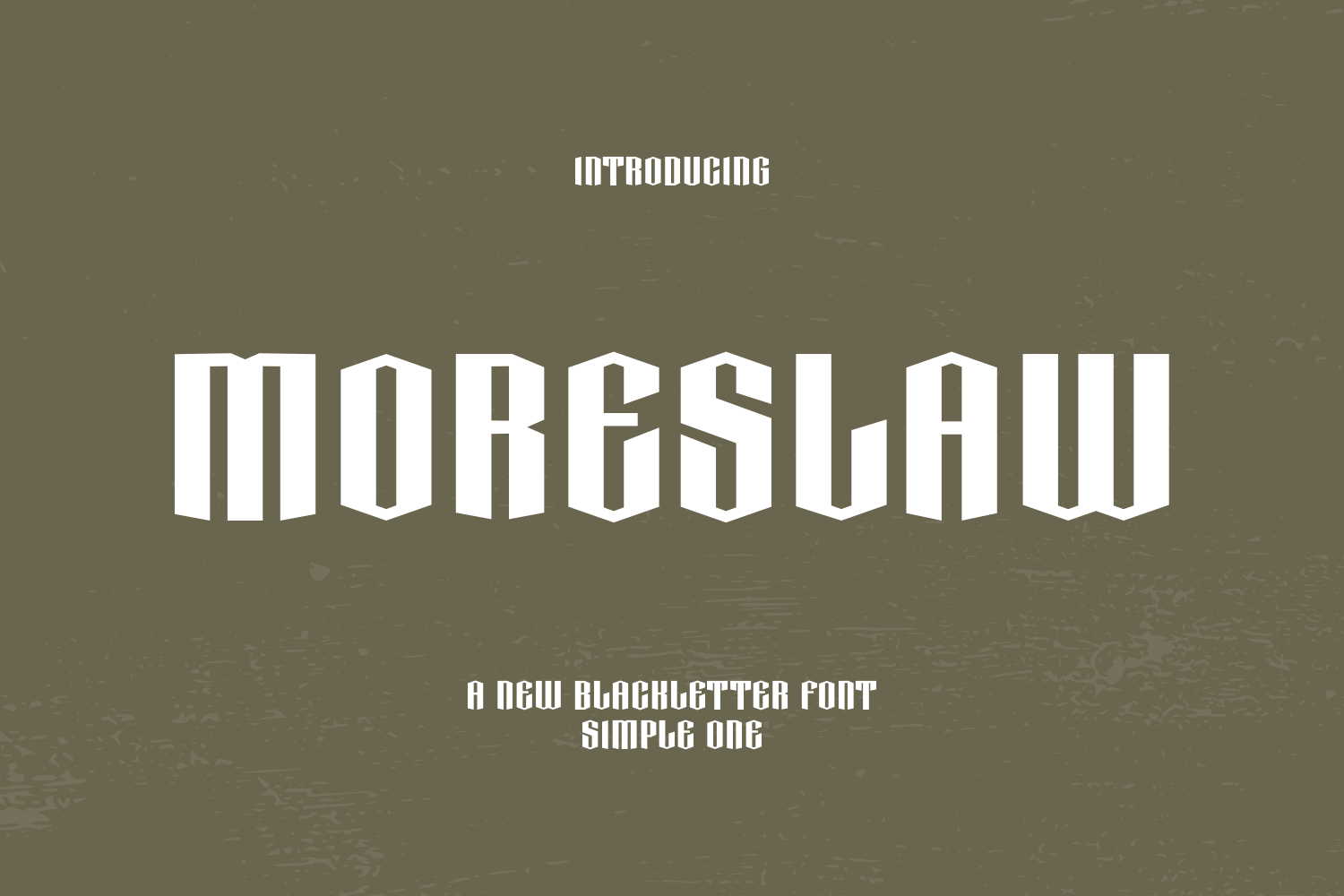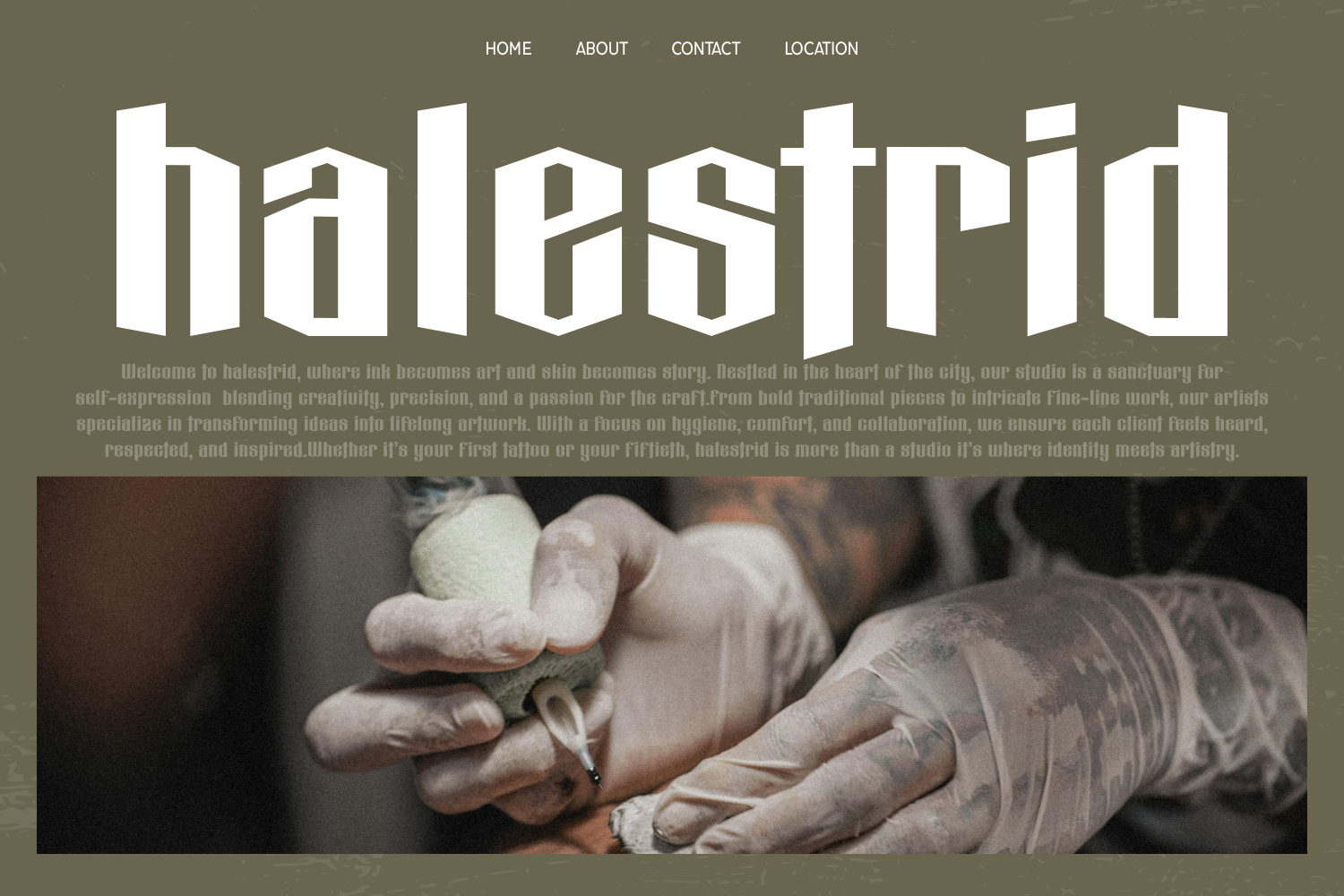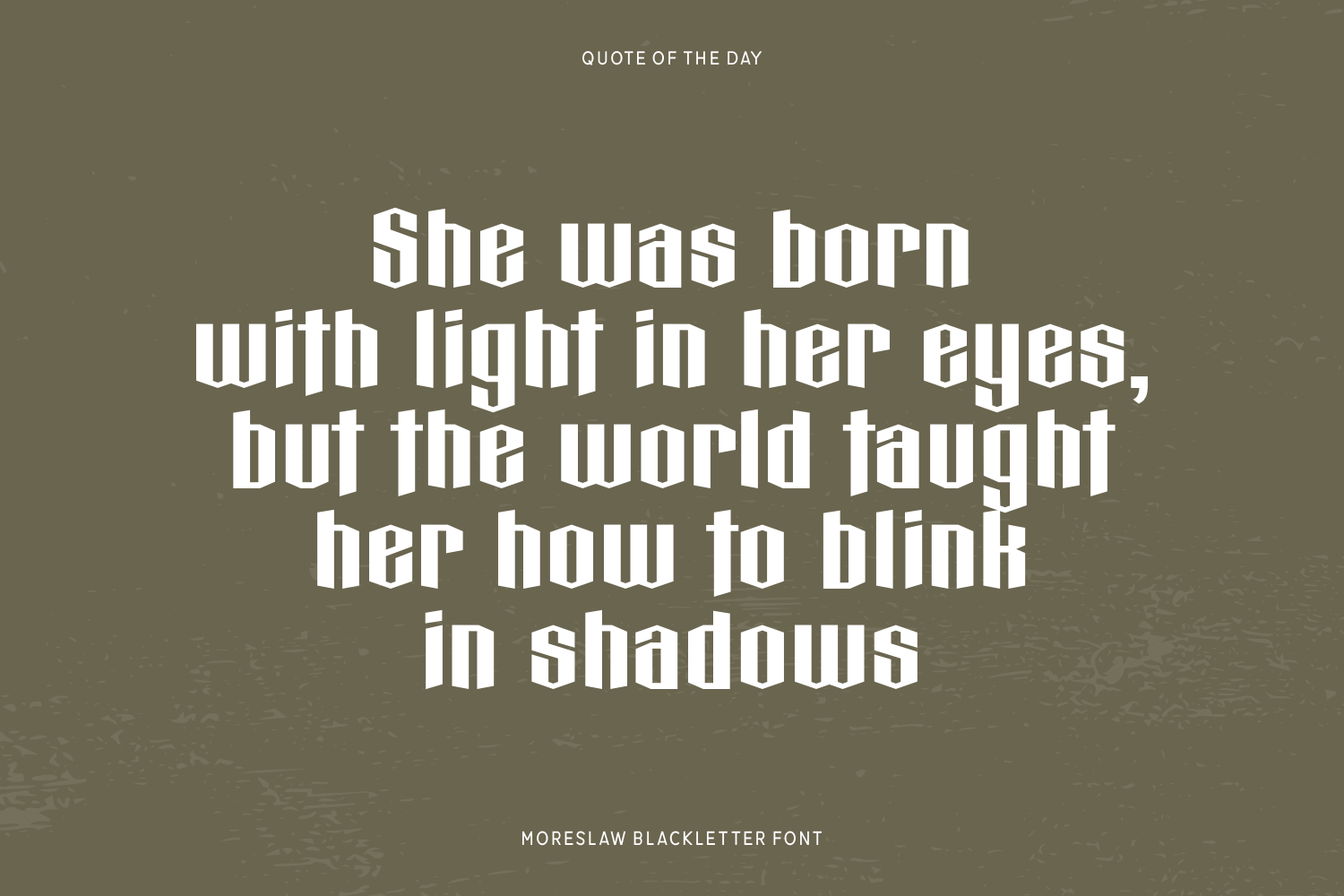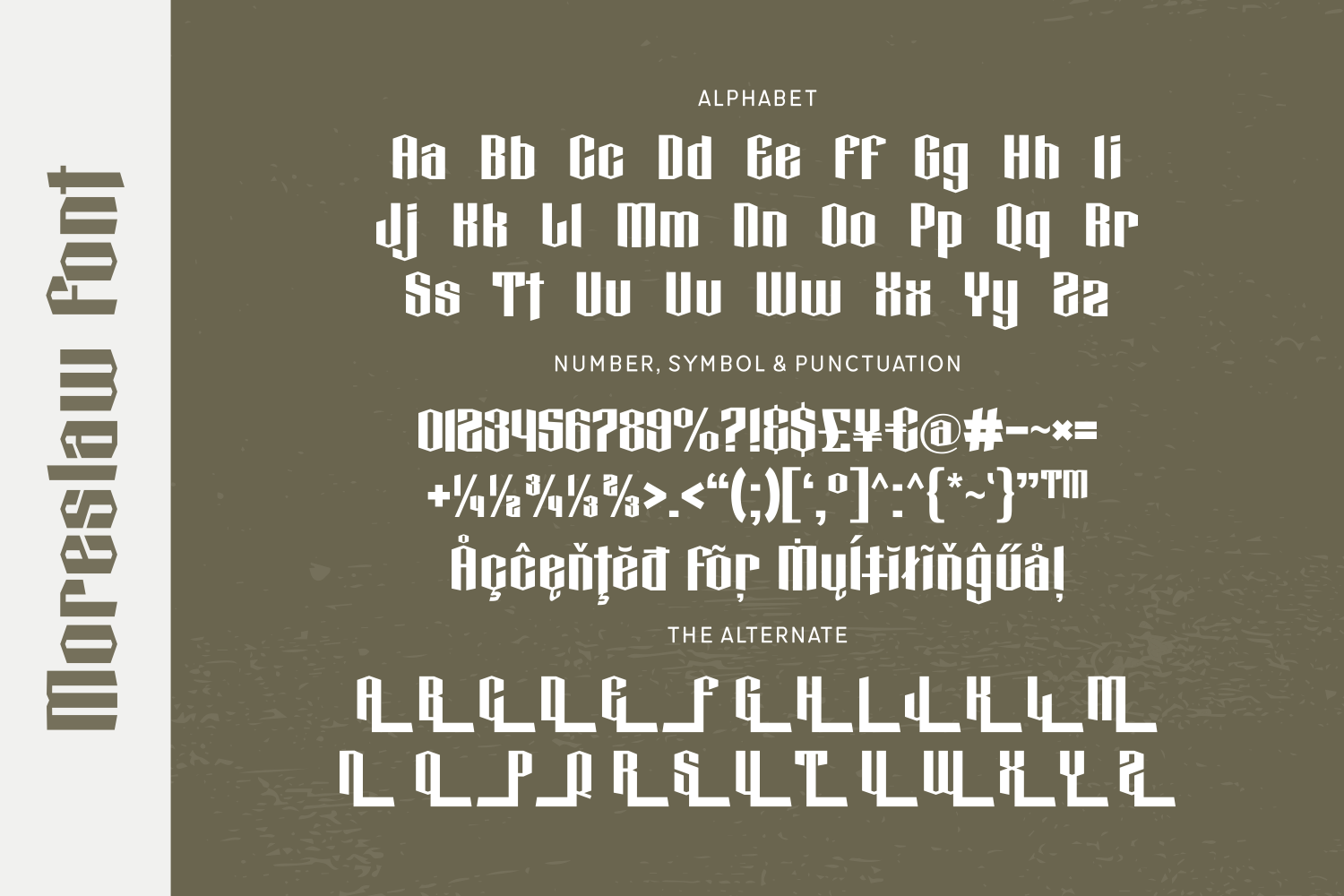
Moreslaw is a sharp, geometric blackletter font with a clean, modern edge. Its tall, chiseled letterforms strike a balance between minimalist design and gothic roots—ideal for branding, headlines, and packaging with a commanding yet contemporary look.